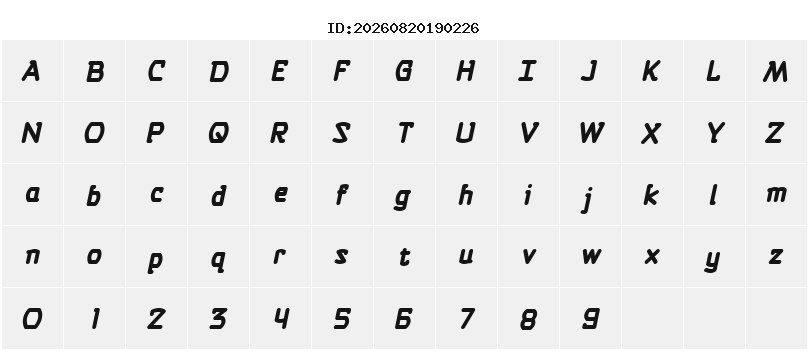
• Font Name: Self Destruct Button BB
• Full Font Name: Self Destruct Button BB Bold
• Designer: Nate Piekos
• Manufacturer: Nate Piekos. Blambot.com
About Self Destruct Button BB.ttf
Self Destruct Button BB.ttf is a modern, elegant sans-serif font designed for ultimate readability and visual harmony. Perfect for branding, headlines, web design, and print materials.